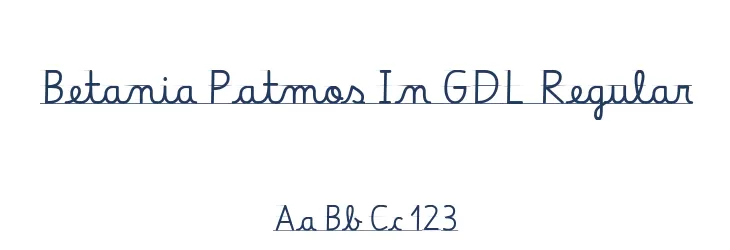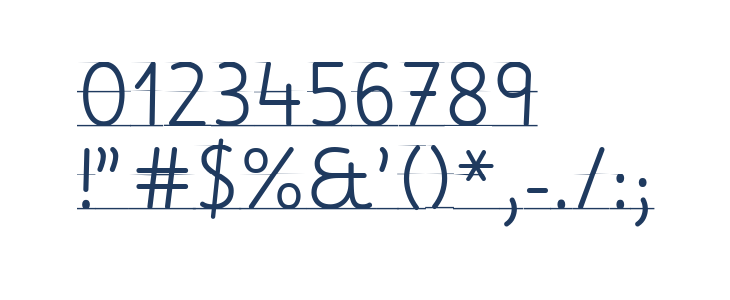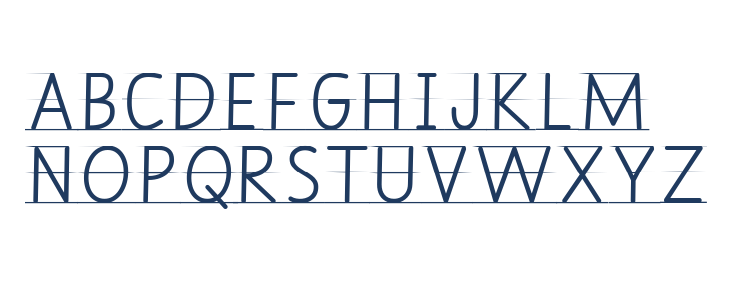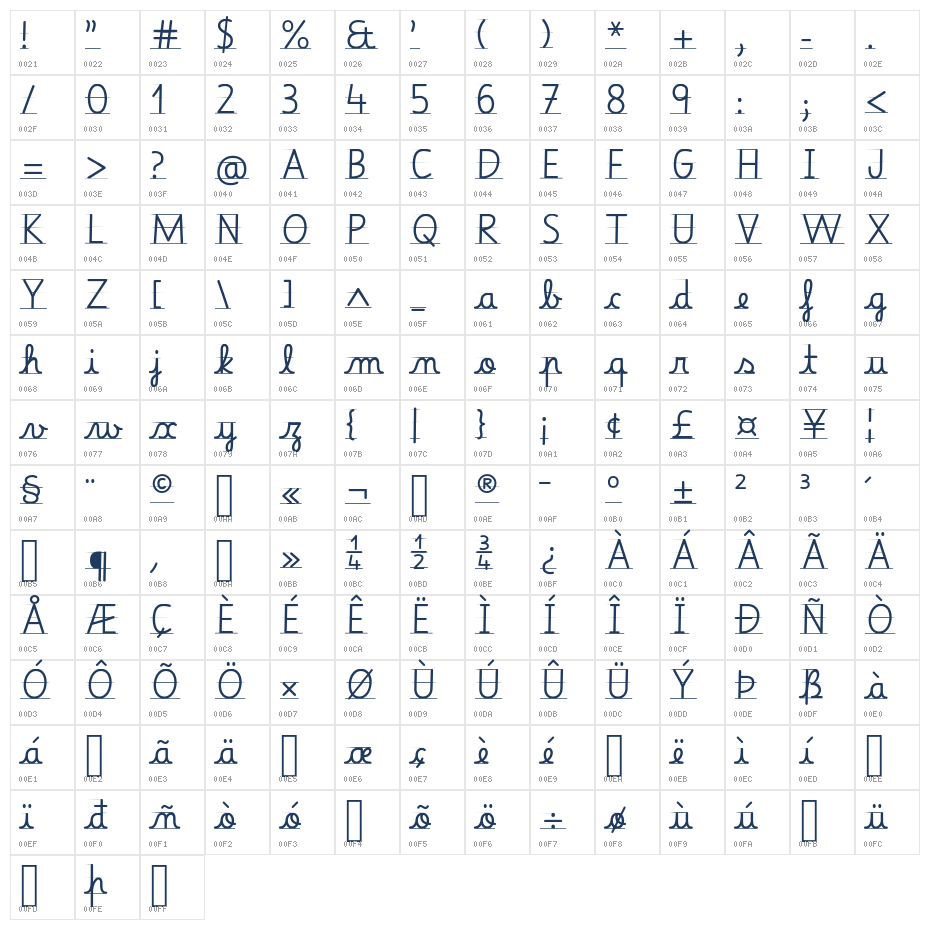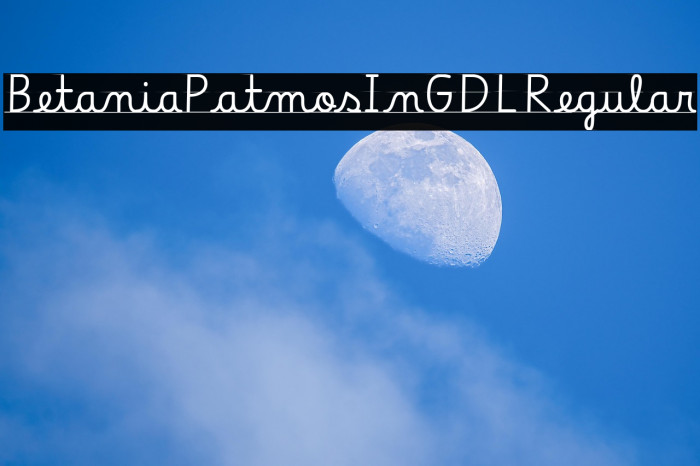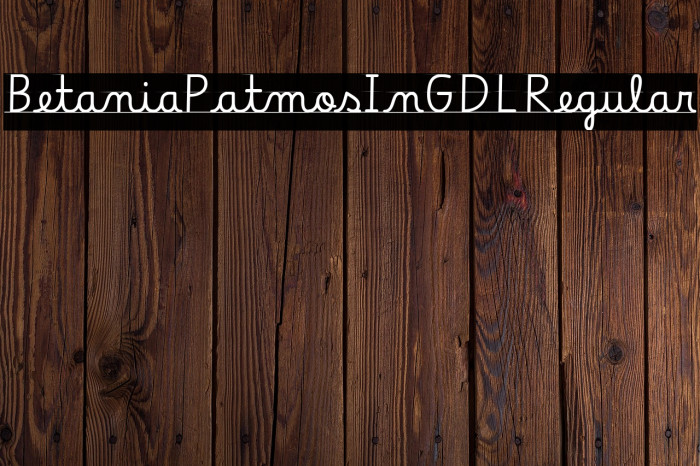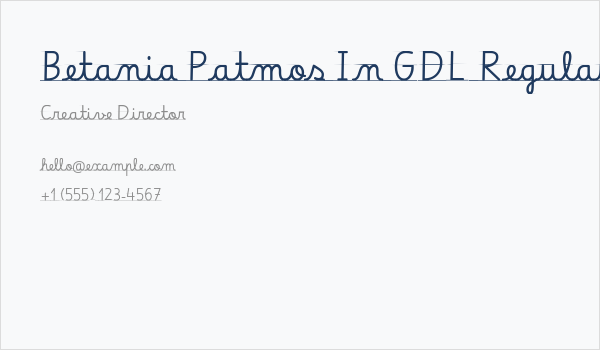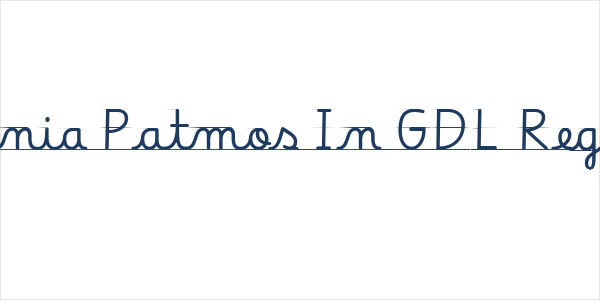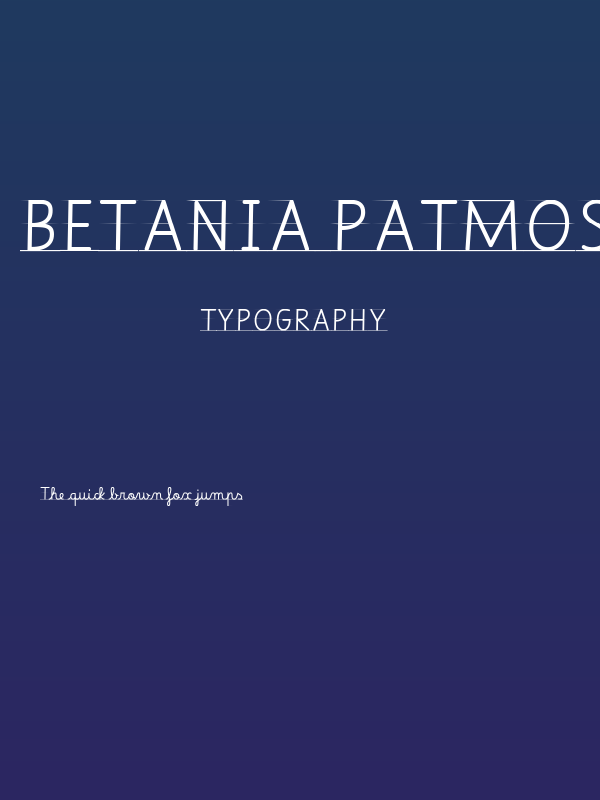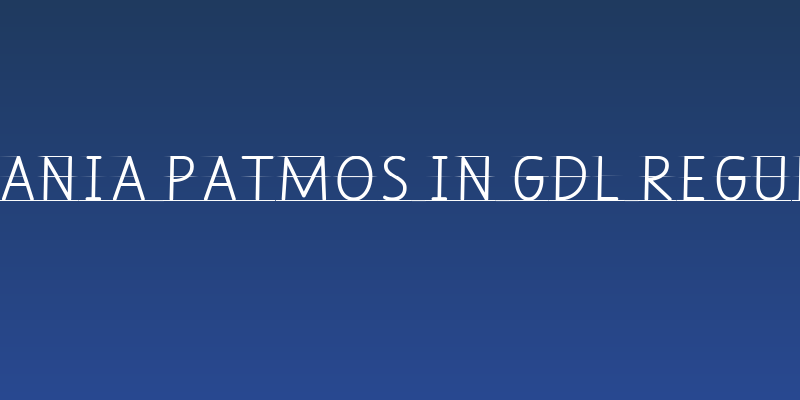
Betania Patmos In GDL Regular Font
Betania Patmos In GDL Regular Description
A geometric, modern sans-serif font with a clean, minimalistic style. The uppercase letters are tall and narrow with sharp, angular features, while the lowercase letters are rounded with a handwritten, cursive influence. The numerals and symbols are consistent with the overall sleek and contemporary aesthetic.
| Overall Style | Modern, Minimalist |
| Use Case | Headlines, Logos, Digital interfaces |